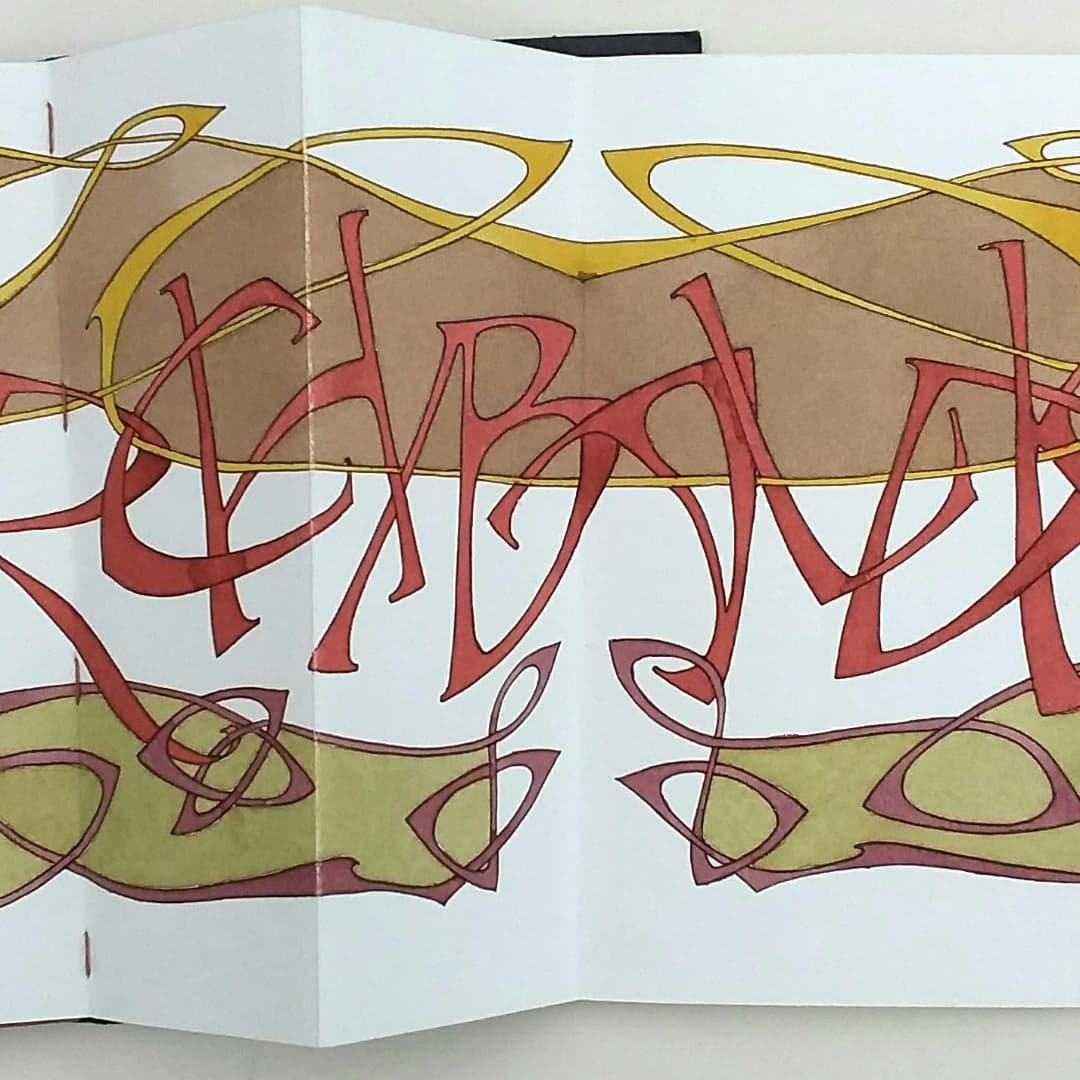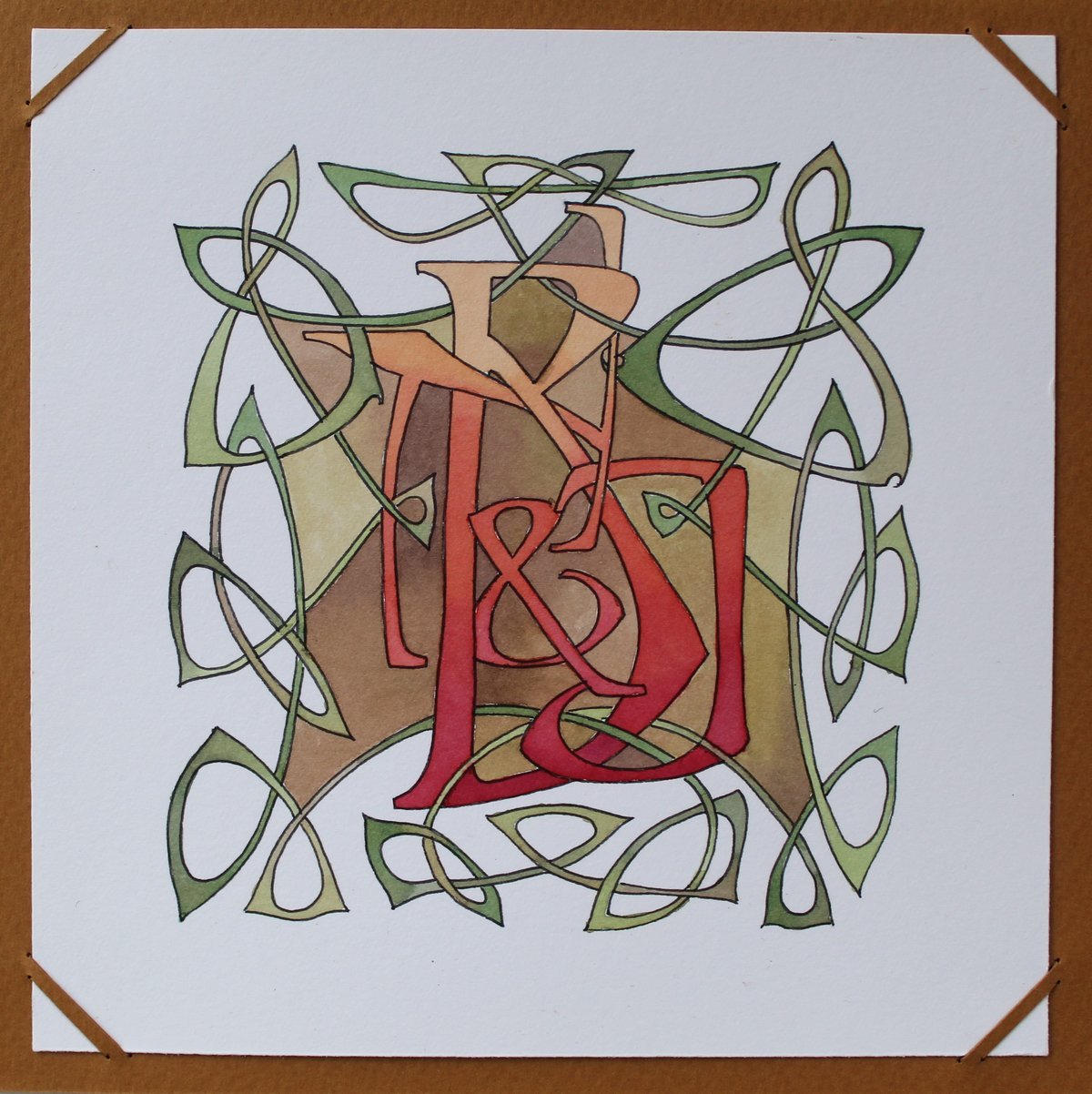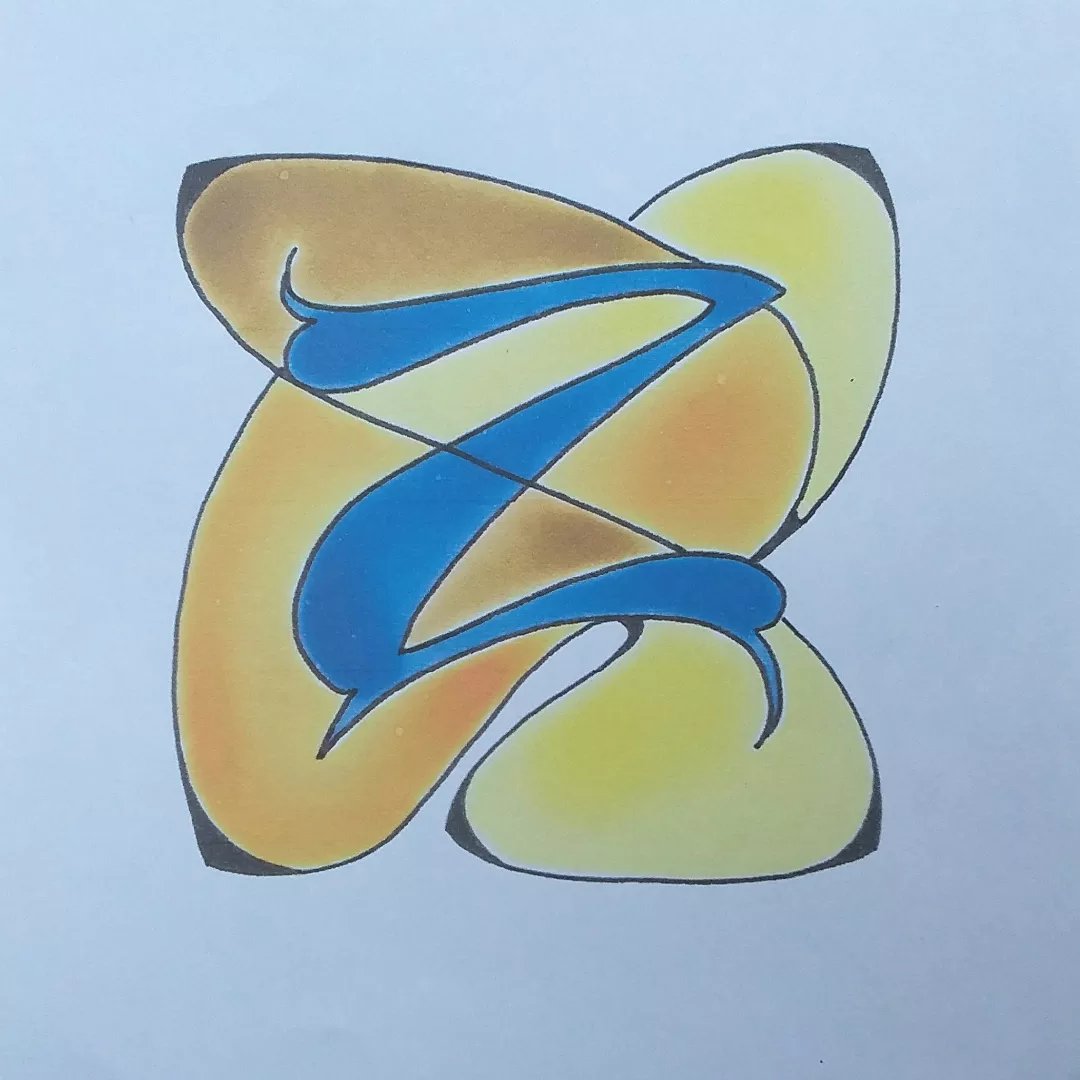
Archibald Knox Workshop with Josie Brown
Archibald Knox, from the Isle of Man, was a designer for Liberty's at the height of their success. His work is a unique combination of designs from the Arts and Crafts Movement, Celtic knotwork and Art Nouveau.
The Online Zoom Workshop with Josie Brown, on 30th November 2024, introduced lettering that is suitable for the interwoven decoration and we approached how to create the designs in a step by step manner. We also looked at which mediums work most effectively and tried out a technique that gives the effect of stained glass or enamelling.